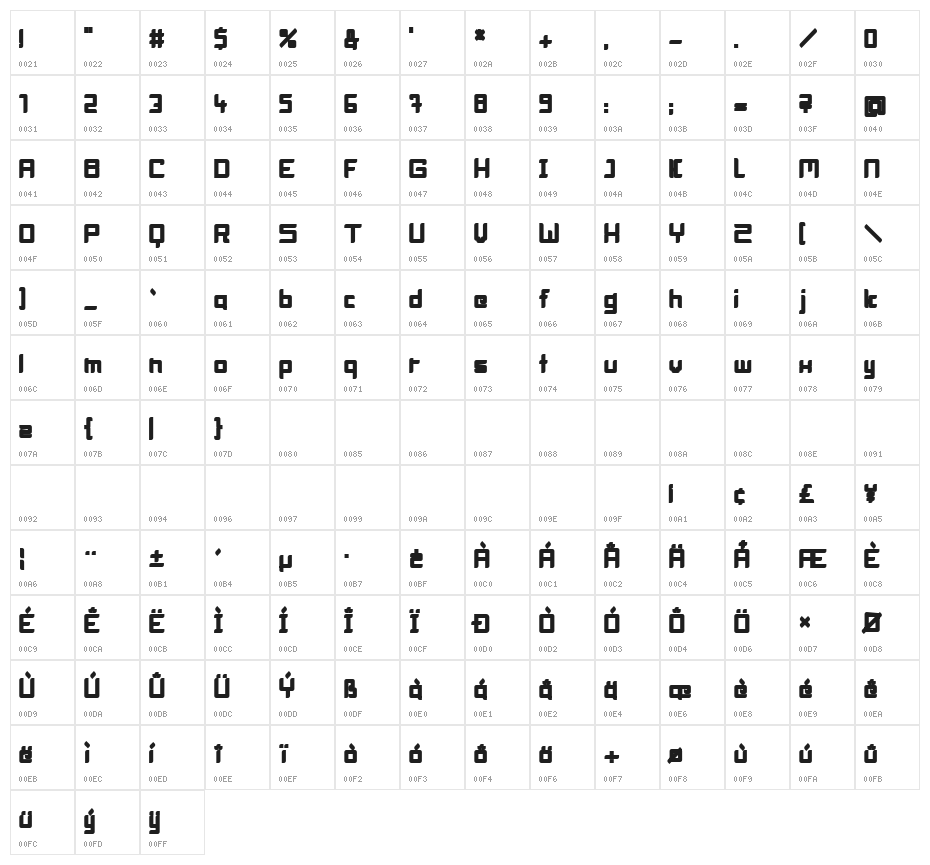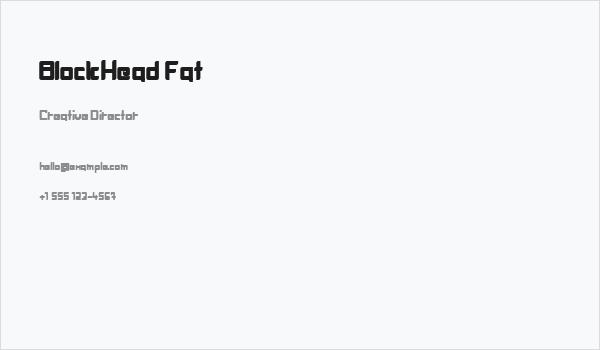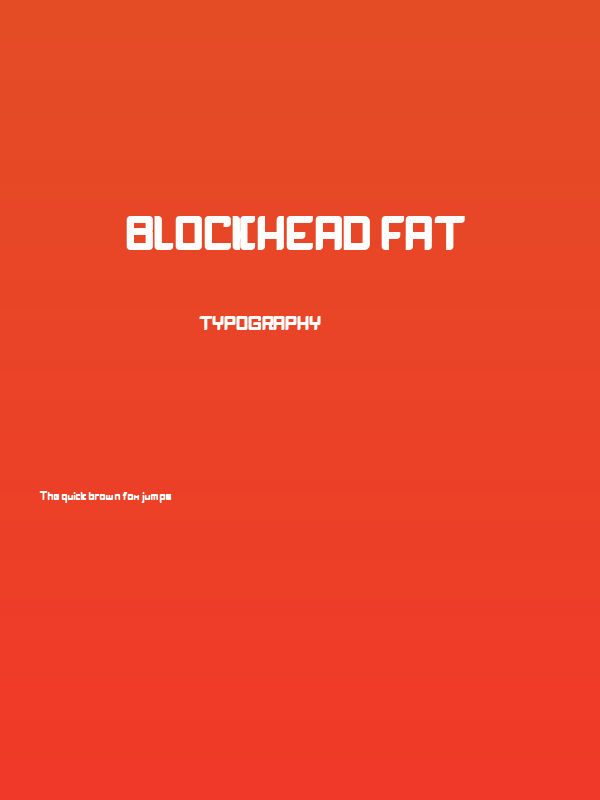
BlockHead Fat Font
BlockHead Fat Description
This font features a bold, geometric design with a blocky appearance. The characters are uniformly thick, creating a strong visual impact. The angular edges and uniform stroke width give it a modern and industrial feel. The uppercase and lowercase letters maintain a consistent style, while the numerals and special characters complement the overall aesthetic. The font's structure is straightforward, with minimal curves, emphasizing its robust and sturdy nature. It's designed to stand out, making it suitable for attention-grabbing headlines or displays.
| Proposed Projects | Ideal for posters, logos, branding, and any project requiring a strong visual impact. |